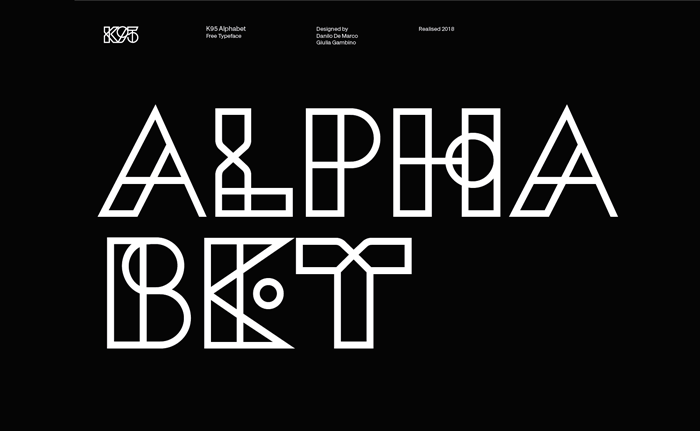
K95 Alphabet Typeface
In the product designers are have a important to fonts. If you are looking for a geometric font then I will introduce you to the font you need. Introducing K95Alphabet! It is designed by Danilo De Marco and Giulia Gambino and shared by Studio K95. K95 Alphabet is a geometric font designed in 2018. Each letter is shaped using the K95’s design logotype, it is have used basic geometrical shapes such as circle, square and triangle.